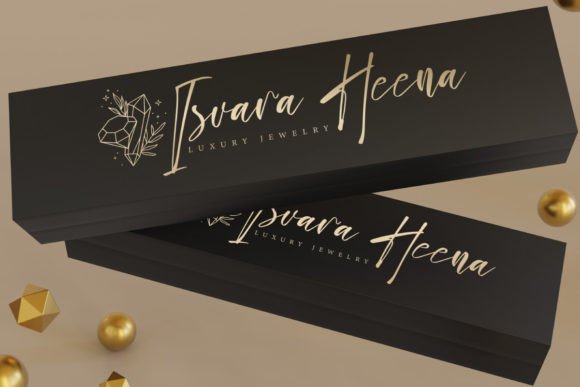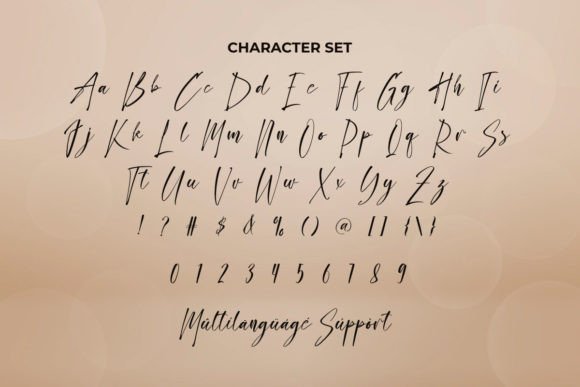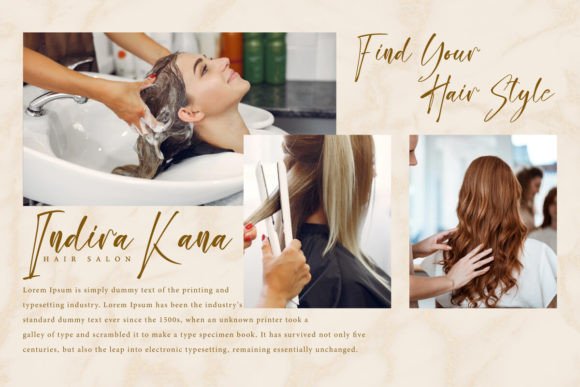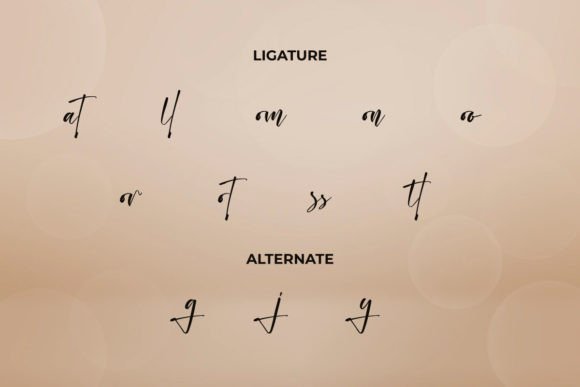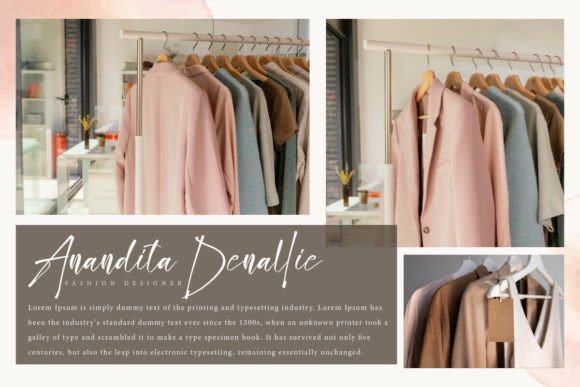
Introducing Harst Glory Font: Elevate Your Designs with Artistic Handwritten Elegance
In the world of typography, a well-crafted font can make all the difference in elevating your designs from ordinary to extraordinary. For designers and crafters seeking a unique and professional signature font, Harst Glory Font is an exceptional choice. This artistic handwritten font is inspired by the fluidity of hand lettering using pen ink, characterized by a beautiful balance of thick and thin strokes that exude a natural and classy appeal.
The Inspiration Behind Harst Glory Font
Harst Glory Font draws its inspiration from traditional hand lettering techniques, where the expressive use of pen ink brings a level of sophistication and elegance to the written word. The font’s design mimics the subtle variations in line width and fluid connections between letters, creating a harmonious and organic feel. This thoughtful design approach makes Harst Glory Font versatile and suitable for a wide range of applications, from branding and advertising to publishing and digital media.
Versatility Across Professions and Industries
One of the standout features of Harst Glory Font is its versatility. Its elegant and professional appearance makes it an excellent fit for various professions, businesses, and industries. Whether you’re a boutique brand looking to add a touch of luxury to your packaging, a fashion designer seeking a sophisticated font for your brand identity, or a florist wanting to create beautiful wedding stationery, Harst Glory Font is up to the task.
This font is particularly well-suited for:
- Boutique brands aiming for a high-end image
- Fashion designers and fashion houses
- Florists and wedding planners
- Interior designers and home decor businesses
- Jewelry and luxury goods providers
- Printing and publishing companies
- Real estate agencies and property developers
- Restaurants and cafes
- Salons and spas
- Skincare and beauty services
- Wedding services and event planners
- Writers and authors
Why Choose Harst Glory Font?
When selecting a font for your project, there are several reasons why Harst Glory Font stands out:
- Unique and Artistic: Its handwritten nature gives it a distinctive and artistic flair that can set your brand or project apart.
- Professional and Elegant: The balanced strokes and fluid connections lend a professional and elegant appearance suitable for high-end projects.
- Versatile: Its wide range of applications makes it a valuable addition to any designer’s font library.
- Easy to Read: Despite its artistic nature, Harst Glory Font remains clear and easy to read, making it practical for both digital and print media.
Tips for Using Harst Glory Font
To get the most out of Harst Glory Font, consider the following tips:
- Pair with Contrasting Fonts: Combine Harst Glory Font with simpler, sans-serif fonts for headings and body text to create visual interest and hierarchy.
- Use for Branding and Identity: Leverage the font’s unique and elegant appearance for logos, business cards, and letterheads to establish a cohesive brand identity.
- Experiment with Colors: While the font’s ink-inspired look suggests traditional ink colors, don’t be afraid to experiment with bold and modern color schemes to match your brand’s personality.
- Consider Line Spacing: Given its handwritten nature, ensure adequate line spacing to maintain readability and flow.
Harst Glory Font offers designers and crafters a unique opportunity to infuse their projects with a touch of artistic elegance and professionalism. Its inspiration from traditional hand lettering, combined with its versatility and readability, makes it an invaluable asset for a wide range of applications. Whether you’re looking to elevate your brand’s identity, create stunning wedding stationery, or simply add a classy touch to your digital content, Harst Glory Font is sure to exceed your expectations.
Discover the creative possibilities with Harst Glory Font and take your designs to new heights of sophistication and style.